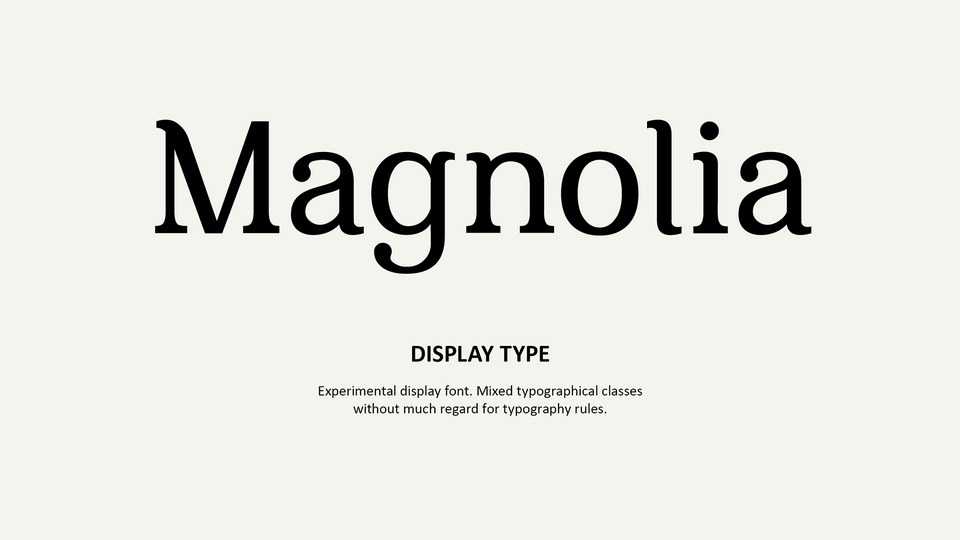
Download Magnolia font, an experimental serif typeface with mixed classes without much regard for typography rules. Magnolia works great for both texts and titles.